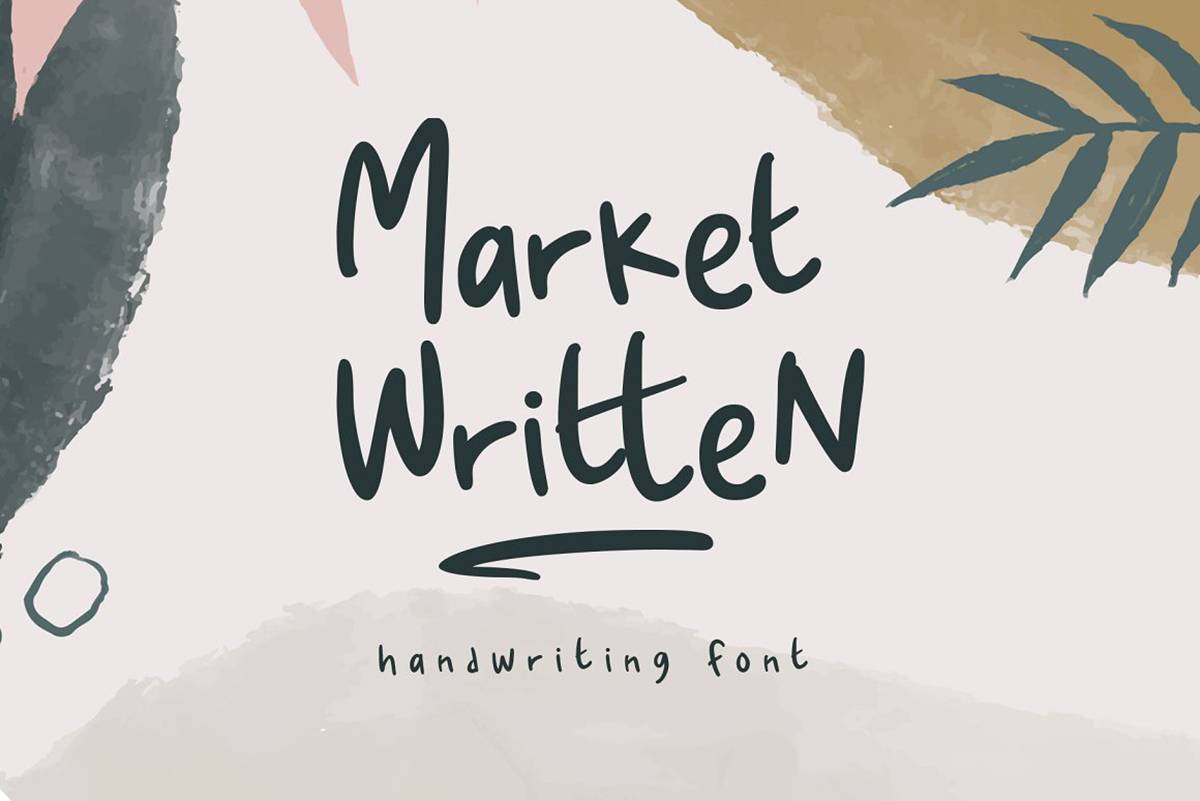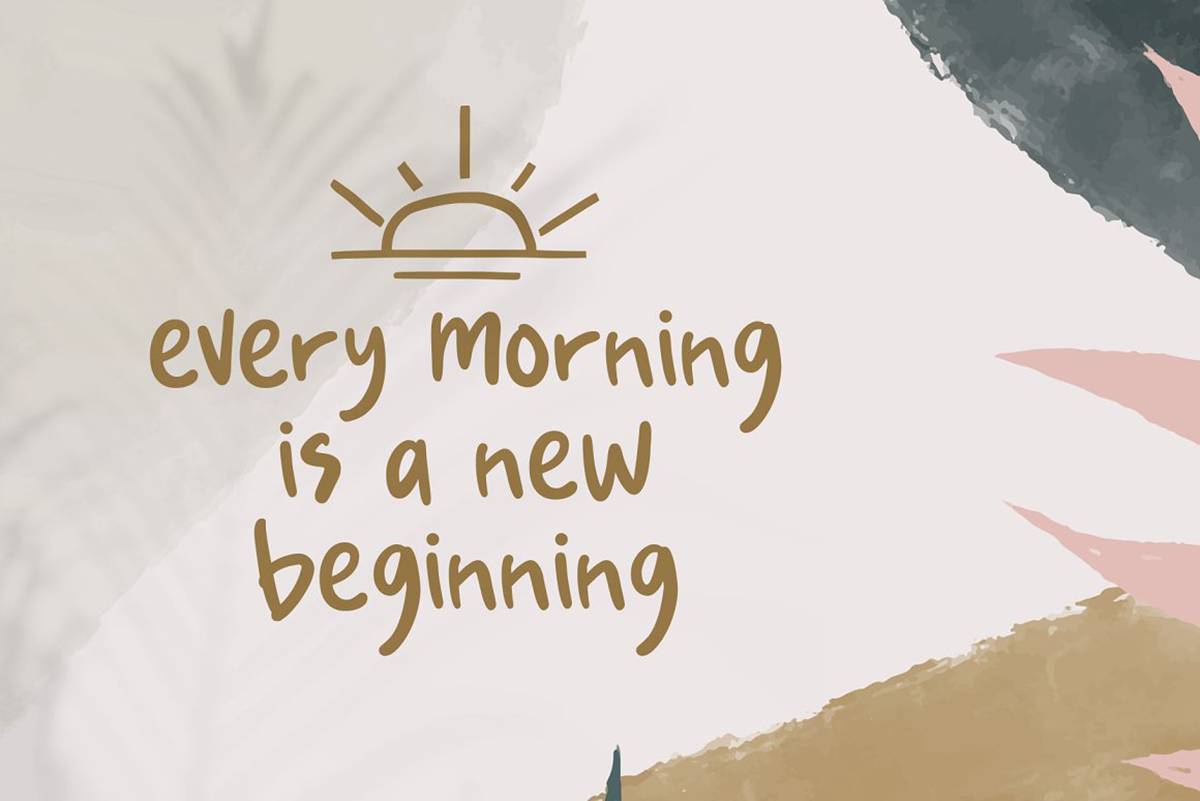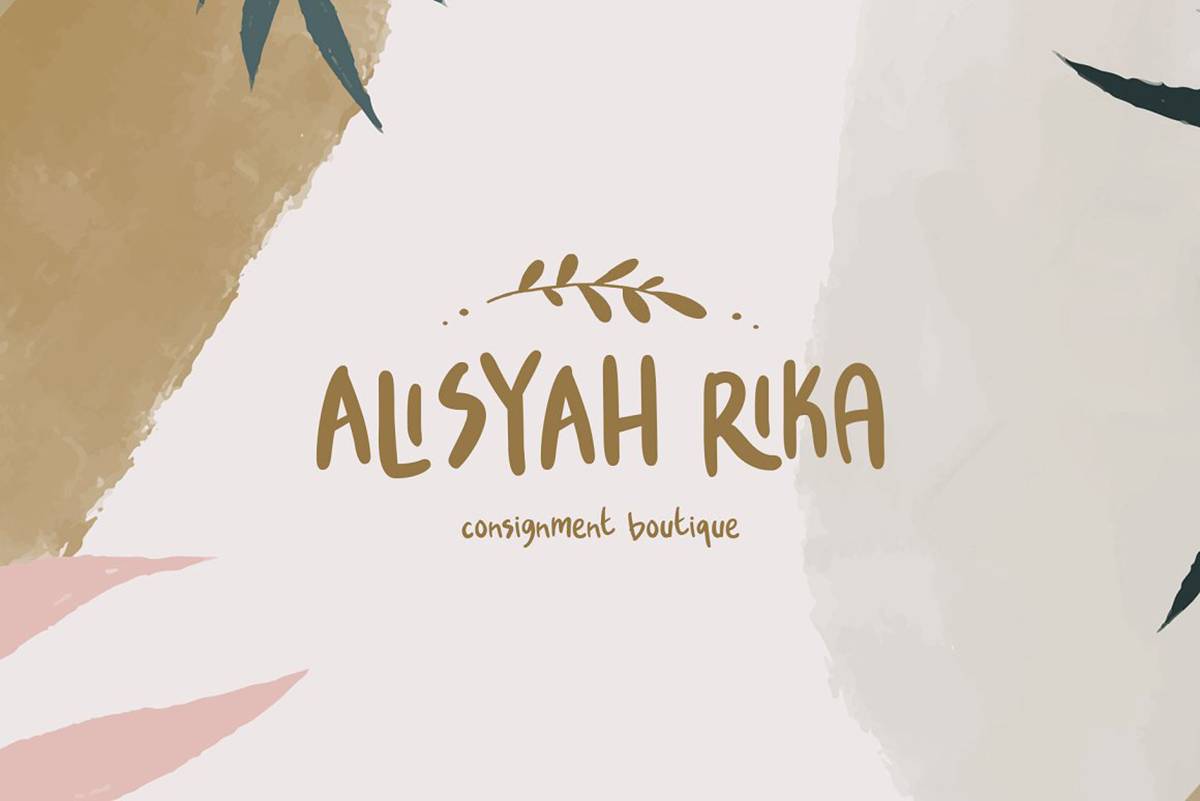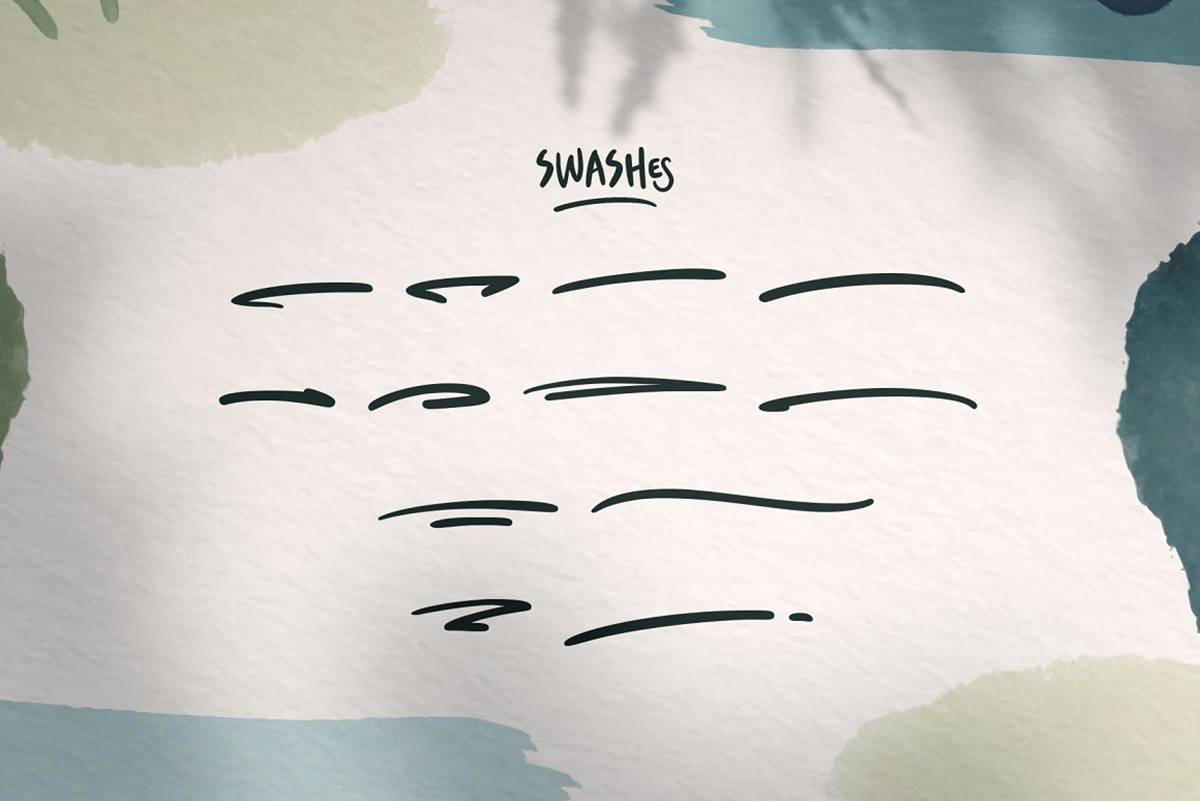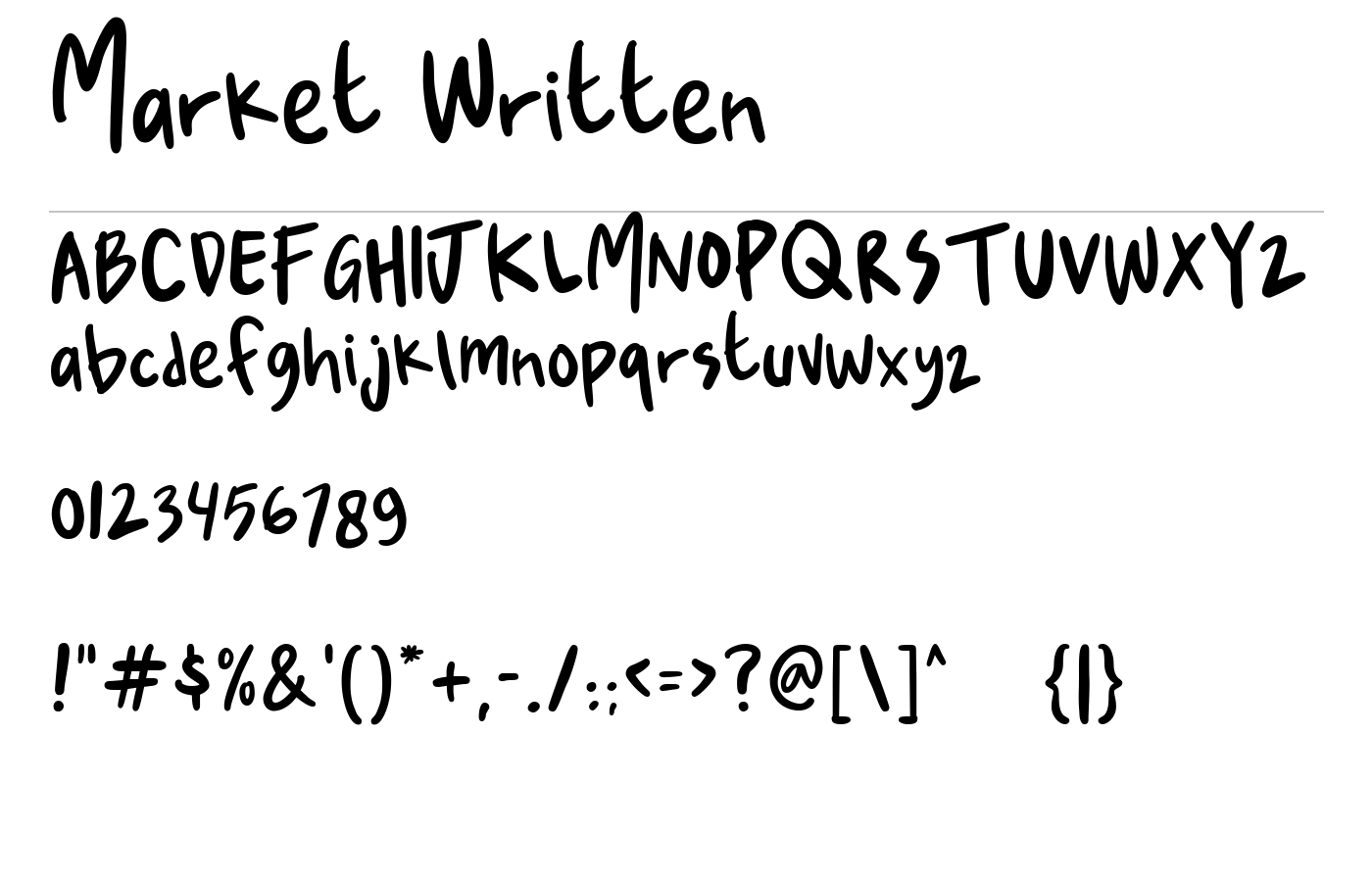
Market Written Font is a casual, handwritten sans serif with a friendly and approachable vibe. Its irregular, slightly playful letterforms and medium weight make it perfect for informal, creative projects like invitations, social media graphics, and children's materials. This font's clear readability combined with a relaxed, personal touch suits brands or designs aiming to feel warm, fun, and human.
Market Written Font
About Market Written Font
| Font family | Market Written Font |